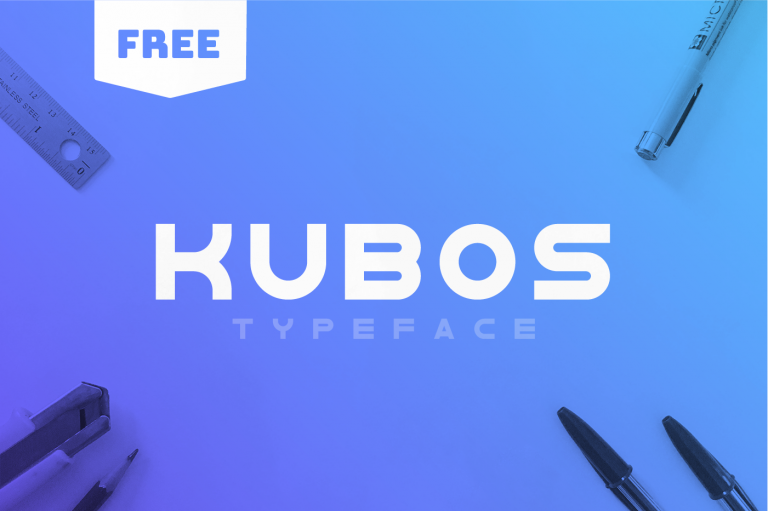
Kubos Display Typeface
Kubos Typeface is a sans-serif modern geometric display typeface. Its name is derivative of the Greek word “κύβος”, which translates to a cube in English. Deceivingly simple at first glance, this typeface explores the challenges behind respecting geometric grid.